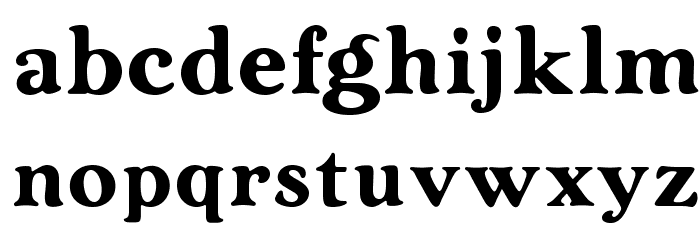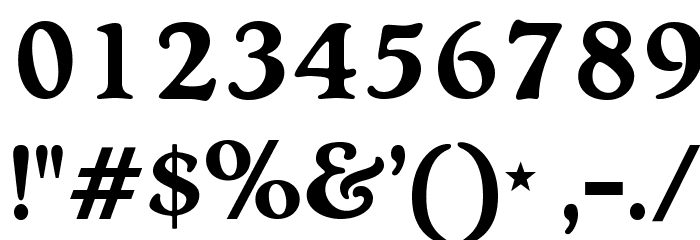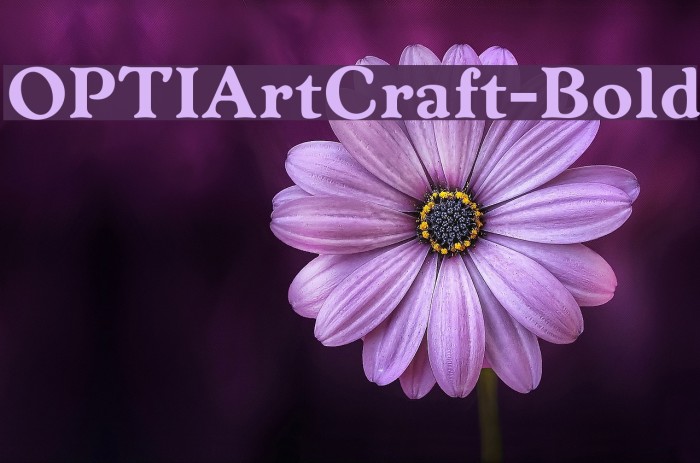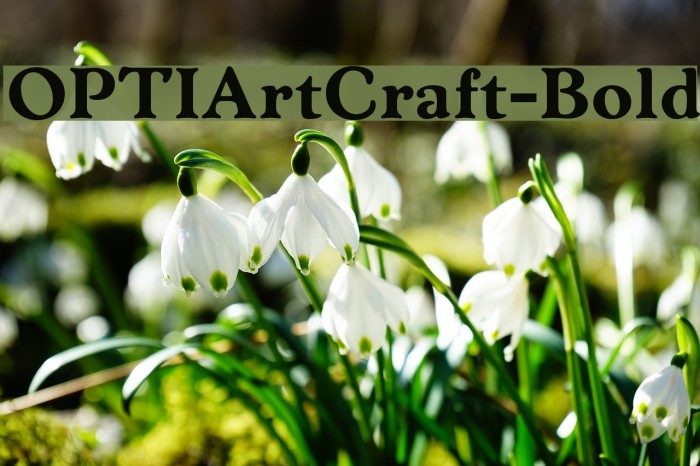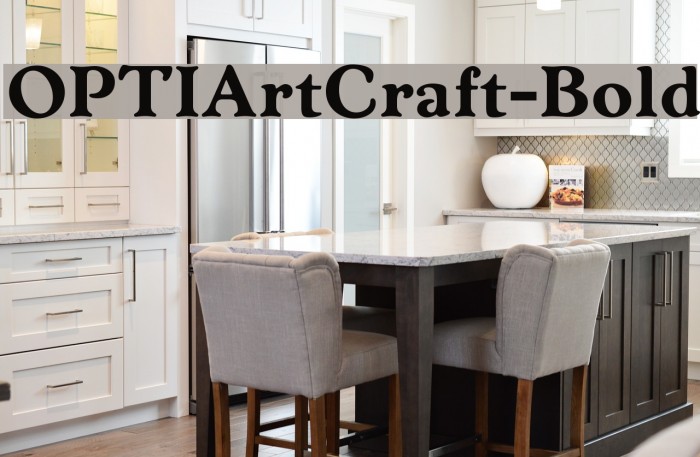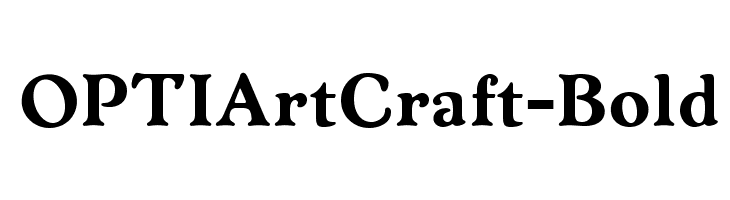
OPTIArtCraft-Bold Font
This font features a bold and expressive style with distinct, rounded serifs that add a touch of elegance and sophistication. The characters are well-defined with a strong presence, making them highly legible and impactful. The uppercase letters exhibit a classic formality, while the lowercase letters maintain a consistent flow with slightly exaggerated curves. The numerals are clear and balanced, complementing the overall aesthetic. Special characters are crafted with attention to detail, enhancing the font's versatility. This font is ideal for projects that require a bold statement with a touch of traditional charm.
A bold, expressive serif font with rounded serifs and a classic yet elegant style.
- Proposed Projects: Ideal for branding, headlines, posters, and editorial design where a strong, classic presence is desired.
- Category: Serif
- Overall Style: Classic